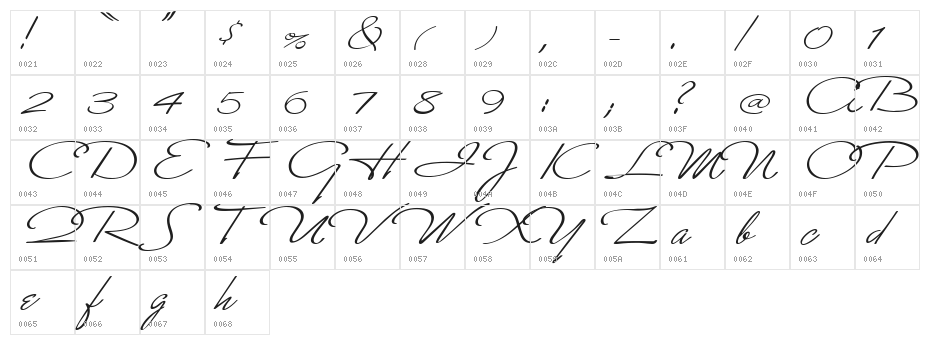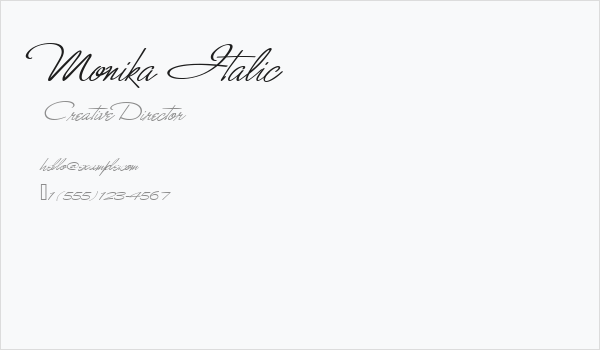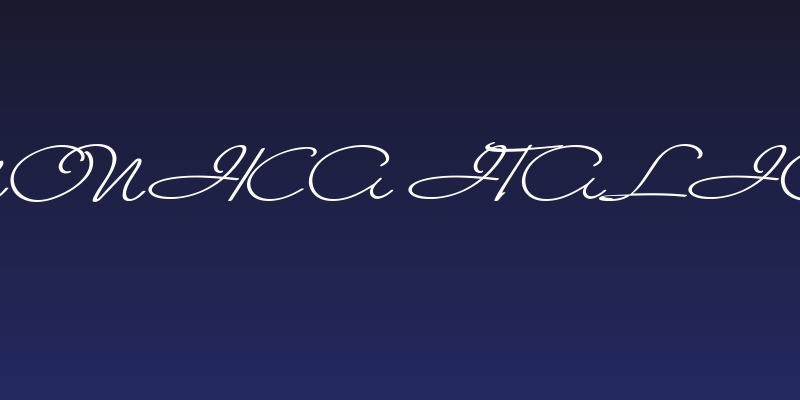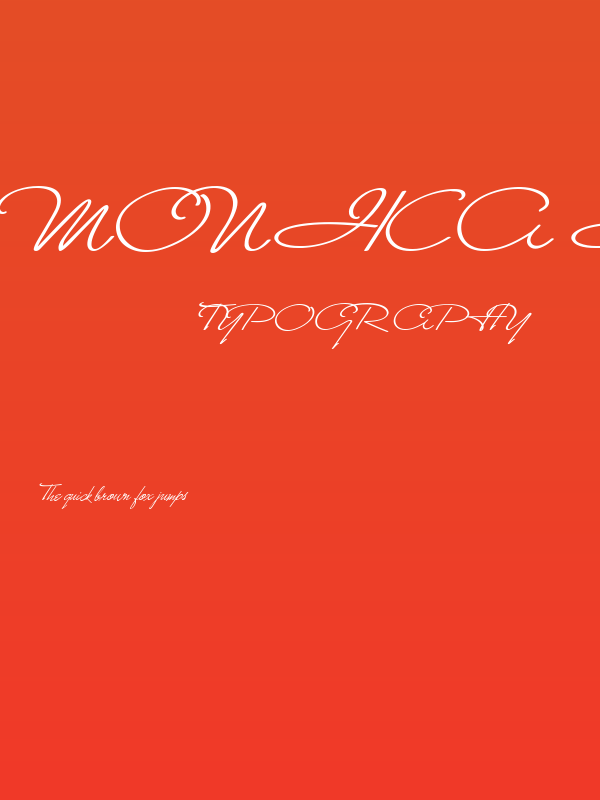
Monika Italic Font
Monika Italic Description
This elegant script font features a flowing, cursive style with a sophisticated and artistic flair. The letters are interconnected, creating a seamless and fluid appearance. The uppercase letters are slightly more ornate, with graceful loops and swirls, while the lowercase letters maintain a consistent and smooth flow. The numerals and special characters are designed to match the overall aesthetic, ensuring a cohesive look across all text. This font is perfect for projects that require a touch of elegance and sophistication, such as invitations, branding, and decorative designs.
| Overall Style | Elegant, Decorative |
| Proposed Projects | Ideal for wedding invitations, branding, greeting cards, and decorative projects. |